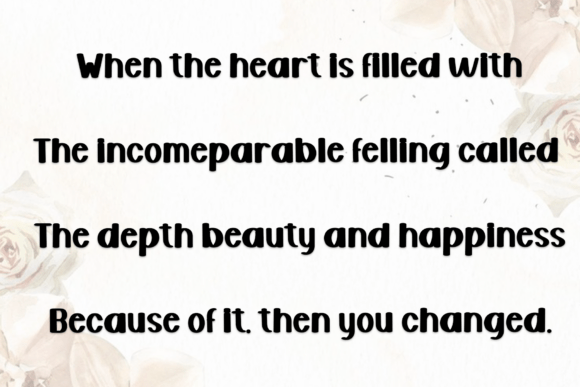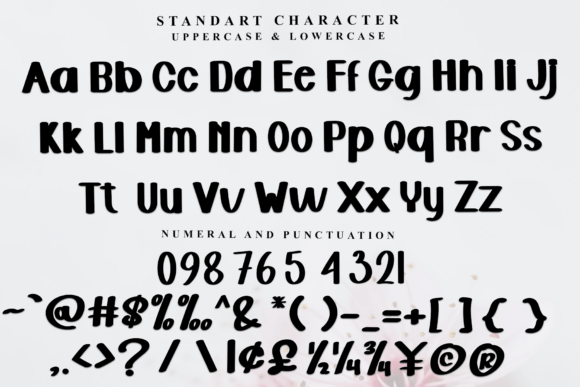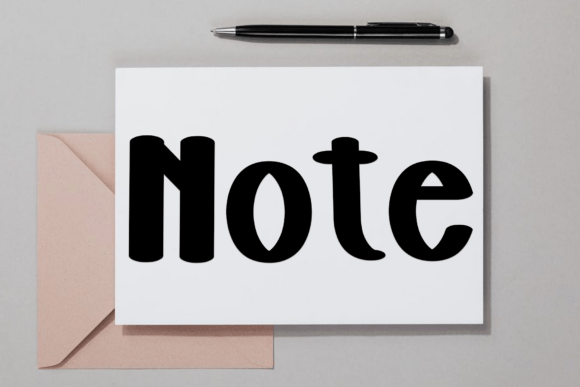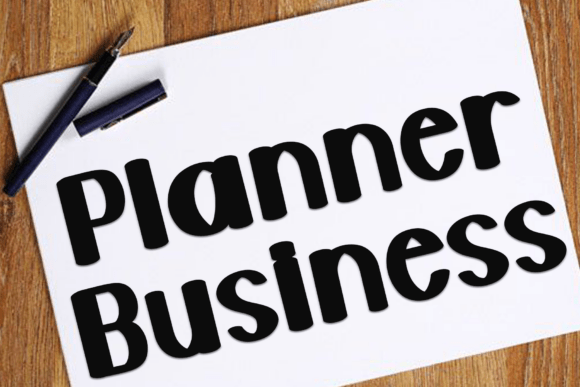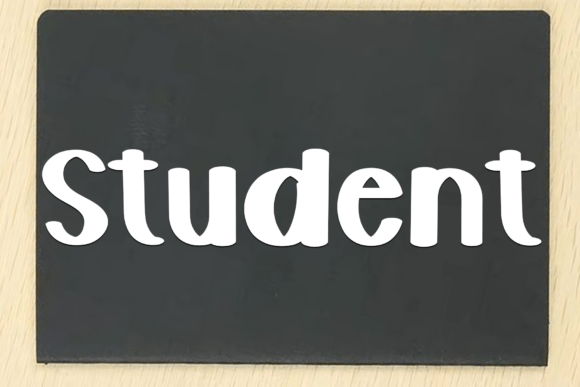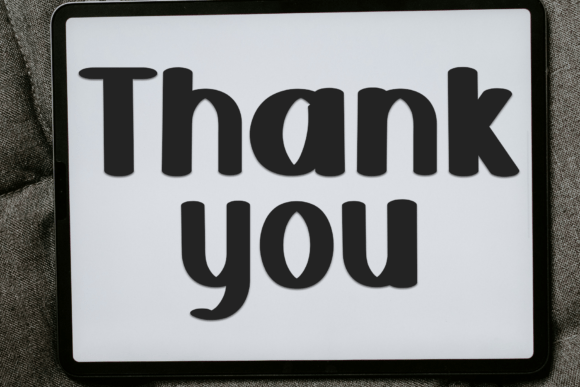
Introducing Boho Display Font: Embodying Laid-Back Warmth and Modern Elegance
In the realm of typography, few fonts manage to capture the essence of both earthy bohemian vibes and contemporary corporate branding. Boho Display, a modern display sans-serif, achieves this delicate balance with remarkable finesse. This font is designed to convey a sense of laid-back warmth, making it an ideal choice for brands looking to infuse their identity with a grounded yet gentle soul.
The Distinctive Features of Boho Display
Boho Display’s uniqueness lies in its thoughtful design elements. The font features:
- Thick, Organic Letterforms: These provide a sturdy and robust appearance, perfect for making a statement.
- Soft, Rounded Terminal Points: Adding a touch of warmth and approachability to the font.
- Subtly Tapered Stems: These contribute to the font’s elegance and versatility.
- Fluid Curves: Seamlessly connecting various elements of the letters, enhancing readability and aesthetic appeal.
Bridging Earthy and Contemporary Branding
The true beauty of Boho Display lies in its ability to bridge two seemingly disparate worlds: the earthy, free-spirited nature of bohemian lifestyles and the sleek, professionalism of contemporary corporate branding. This makes it a versatile font suitable for a wide range of applications, from independent organic cafes and boutique ceramic shops to sustainable product packaging and social media headers.
Applications of Boho Display
Given its unique blend of structural weight and approachable presence, Boho Display is perfectly suited for:
- Independent Organic Cafe Identities: Adding a cozy and welcoming feel to brand communications.
- Boutique Ceramic Shop Logos: Bringing a touch of artisanal charm and personality.
- Sustainable Product Packaging: Conveying eco-friendliness and a commitment to sustainability.
- High-Impact Social Media Headers: Capturing attention with its cozy-and-conscious vibe.
Why Choose Boho Display?
Choosing Boho Display for your branding or design project comes with several advantages:
- Unique Aesthetic: Stand out with a font that offers a fresh take on modern sans-serifs.
- Versatility: Use it across various platforms and applications, from digital to print.
- Emotional Connection: Create a deeper connection with your audience through its warm and inviting feel.
Boho Display is more than just a font; it’s a statement of intent. It speaks to those who value both the earthy, bohemian spirit and the sleekness of modern design. Whether you’re a designer looking for a unique typography solution or a brand aiming to redefine your identity with a touch of laid-back warmth, Boho Display is an exceptional choice. Embrace the grounded-and-gentle soul of Boho Display and elevate your brand’s visual storytelling.
With Boho Display, you’re not just choosing a font; you’re embracing a design philosophy that celebrates warmth, approachability, and a deep connection to both the earthy and the modern. Make your mark with Boho Display and let its unique character speak volumes about your brand’s values and aesthetic.